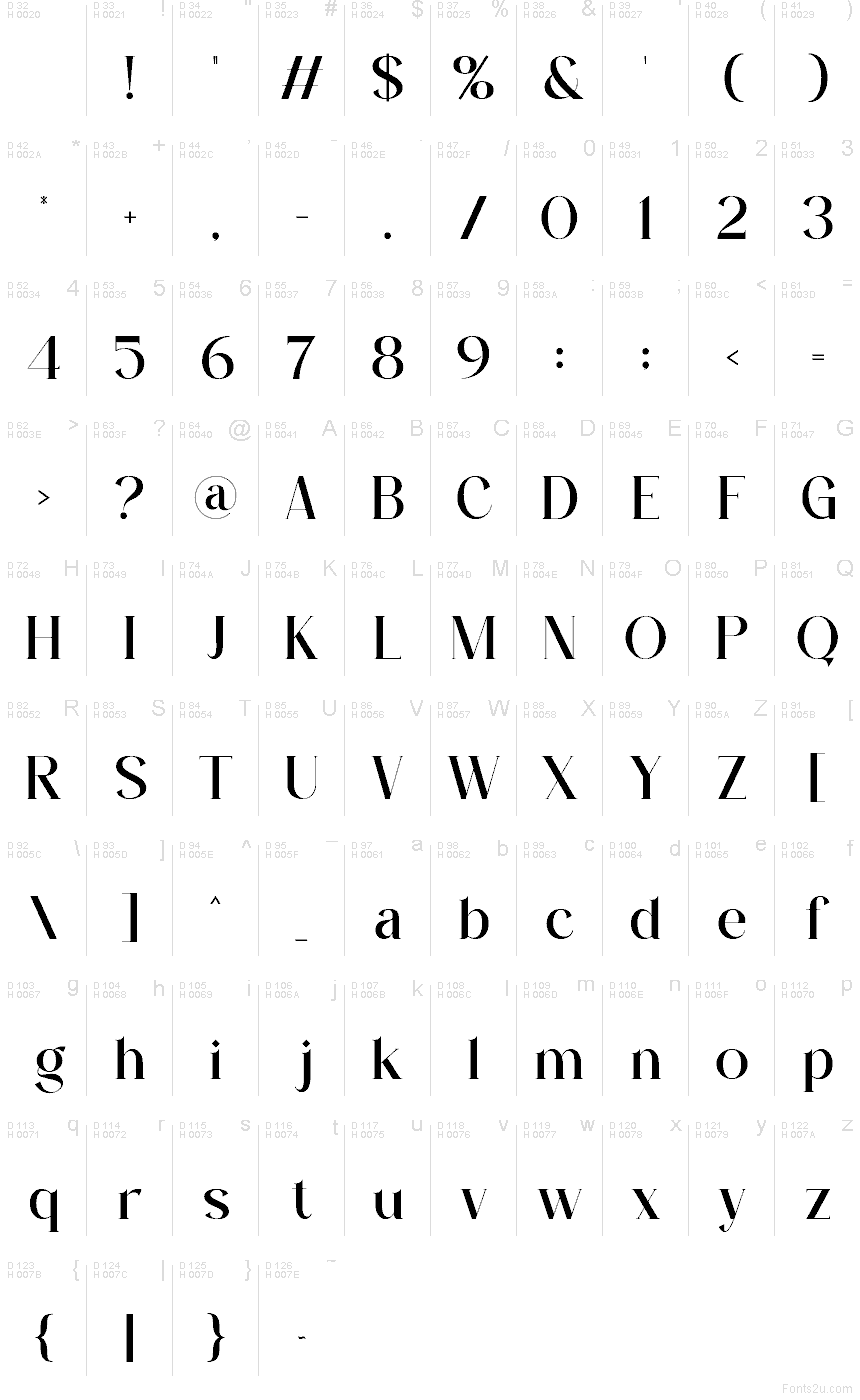
Elikora
Elikora font by ErmediStudio is a free elegant serif typeface with a striking, editorial attitude. Tall, inky verticals slice through the whitespace, while razor-cut curves and a distinctive diamond accent give it a fashion-magazine edge. The letters feel both sculpted and fluid, creating a dramatic rhythm that instantly pulls the eye toward headlines and logos.
Using Elikora, you get a serif that shines on magazine covers, luxury branding, beauty packaging, posters, book jackets, and bold social media graphics. This free font thrives at larger sizes where its sharp details can breathe; pair it with a clean sans for body copy to keep layouts refined and readable.